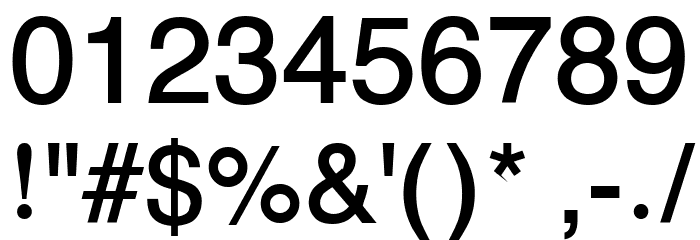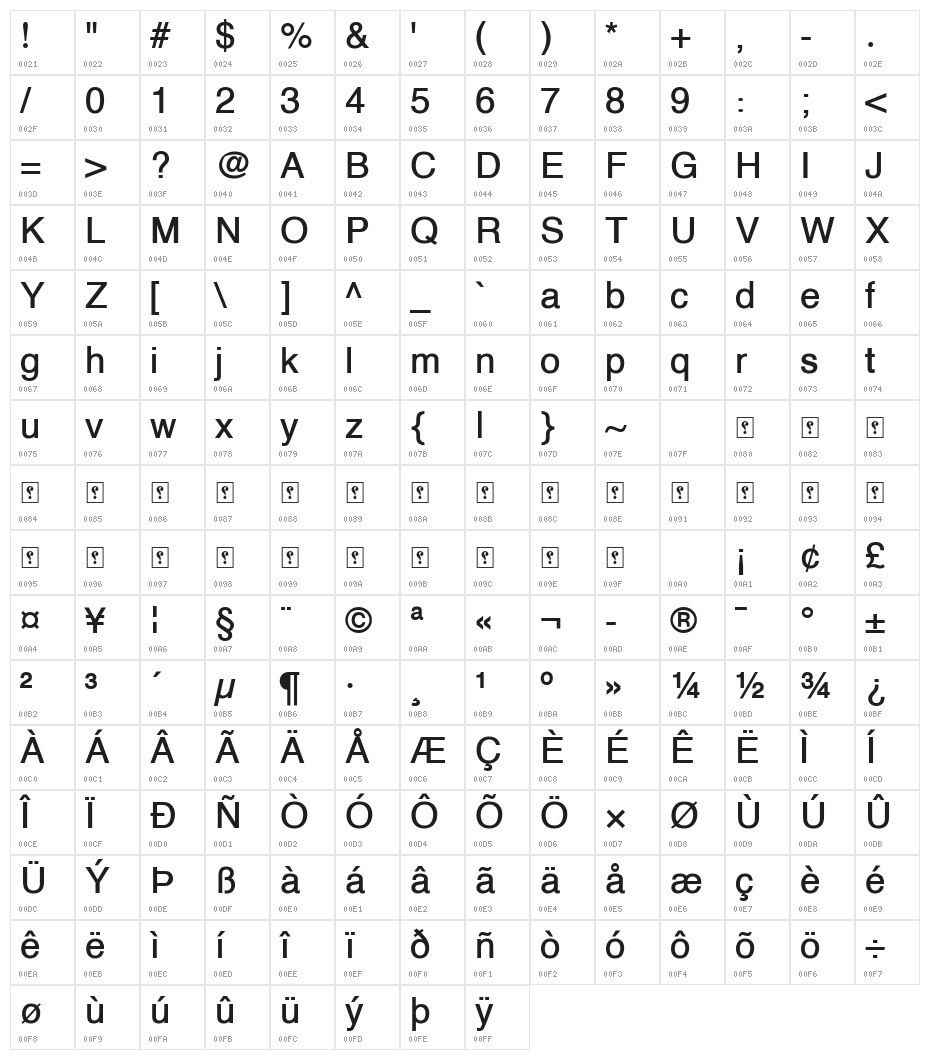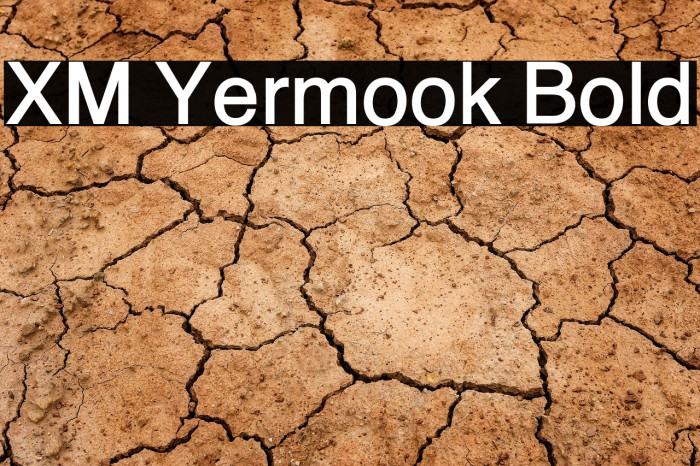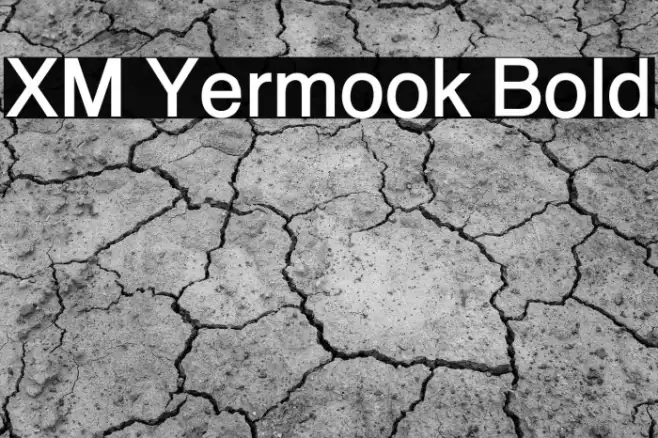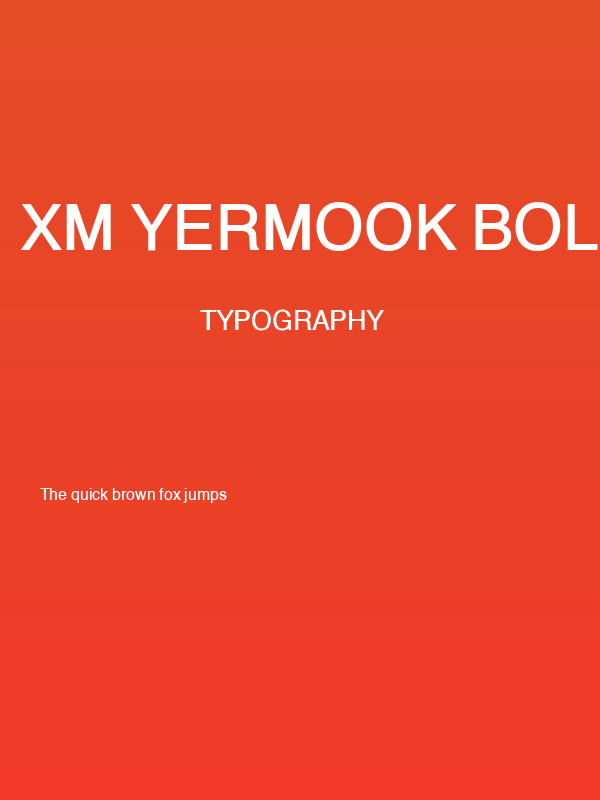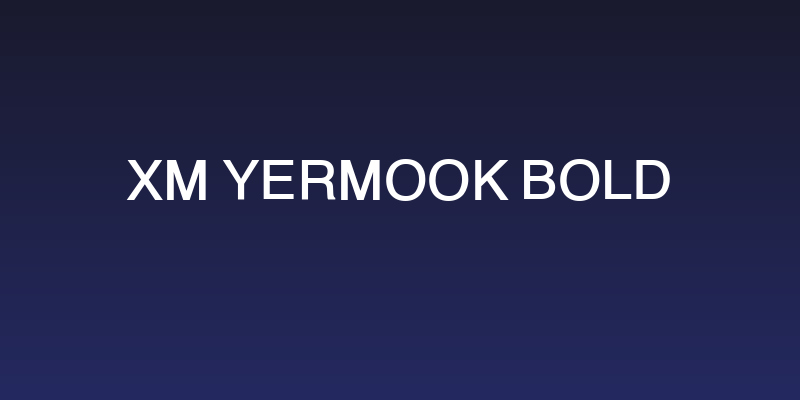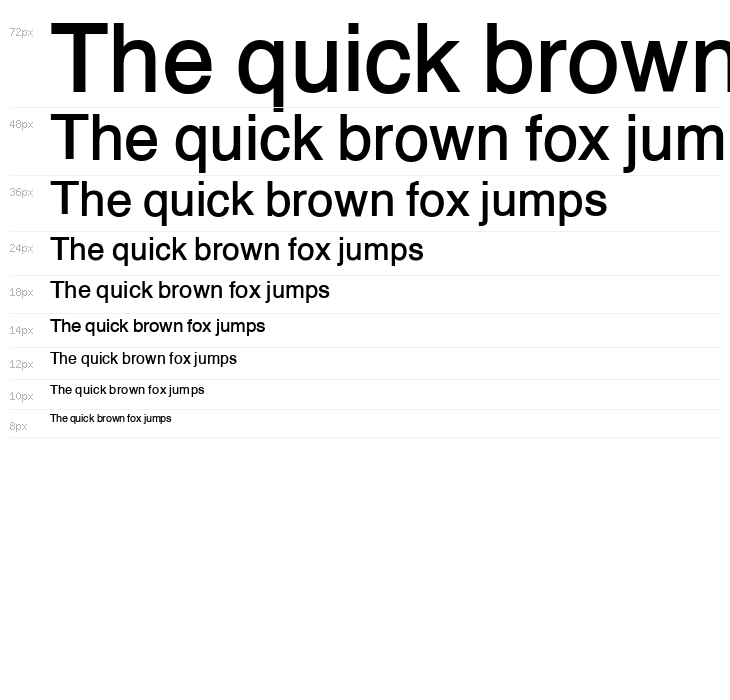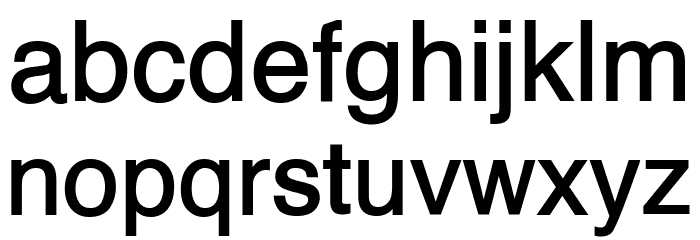
XM Yermook Bold Font
XM Yermook Bold Description
This typeface features a clean and modern sans-serif design with a bold weight, making it highly legible and impactful. The characters are evenly spaced, providing a balanced and harmonious appearance. The uppercase and lowercase letters are well-proportioned, with consistent stroke widths that contribute to its uniform look. The numerals and special characters are designed to match the overall style, ensuring a cohesive visual presentation. This font is versatile, suitable for a wide range of applications from digital to print media.
| Proposed Projects | Ideal for branding, advertising, headlines, and digital content where clarity and impact are essential. |